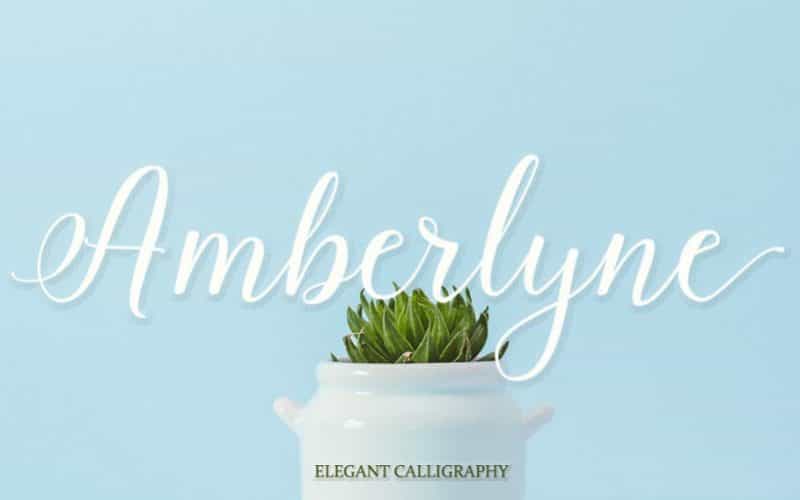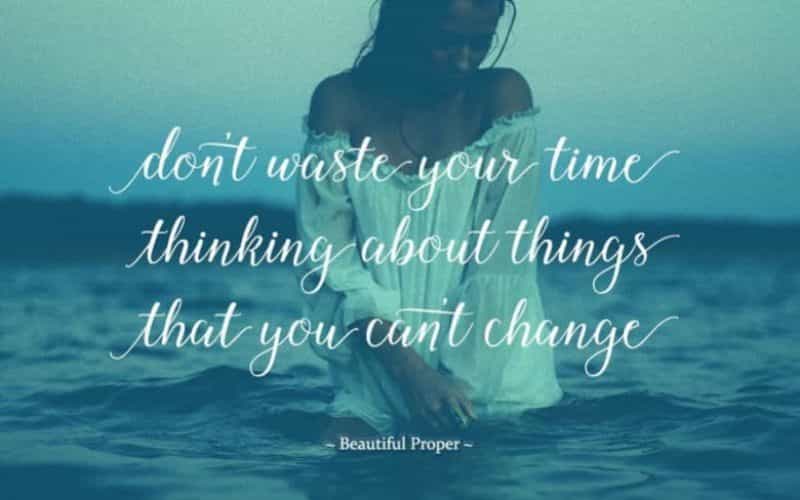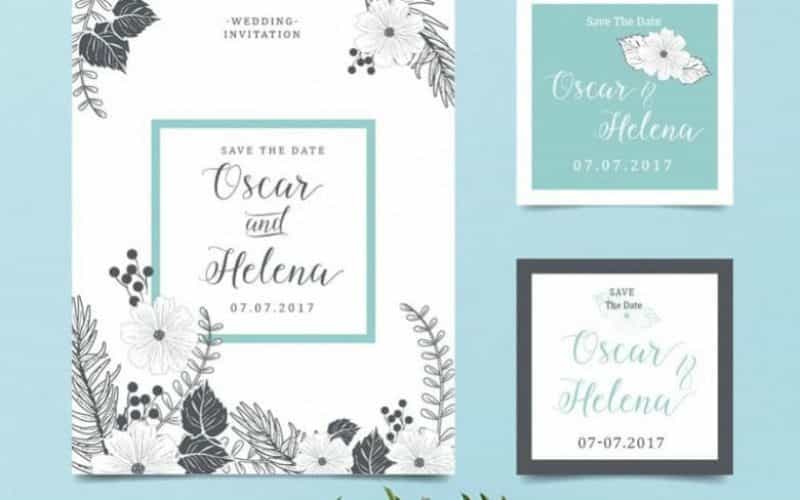
Amberlyna Script font style comes with a character. Ideal for a logo, a name tag, handwritten quotations, product packing, goods, social media, and greeting cards. It contains a full set and upper and lower case letters, various punctuation, numbers, and supports multi-languages. You also easily access all the symbols using software that is currently available and uses Coral draw with oak version.